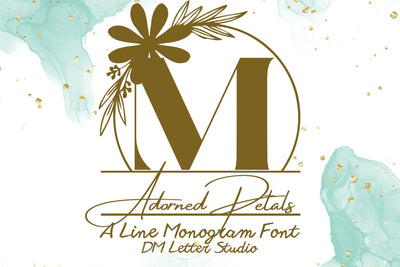
Adorned Petals Line Monogram
Adorned Petals Line Monogram – Minimalist Floral Outline Monogram Font
Adorned Petals Line Monogram is a sophisticated outline monogram font featuring delicate floral line art embellishments on uppercase serif letters. With its refined minimalist aesthetic, this font is ideal for wedding branding, custom nameplates, feminine logos, and high-end packaging. The graceful outlines and botanical accents bring a subtle touch of elegance to every design.
Floral Line Embellishments: Each uppercase letter is decorated with fine-line floral details for a soft, artistic look.
Elegant Serif Structure: A classic serif base ensures readability and timeless appeal.
Minimalist Monogram Style: Clean outlines and floral accents perfect for modern, romantic personalization.